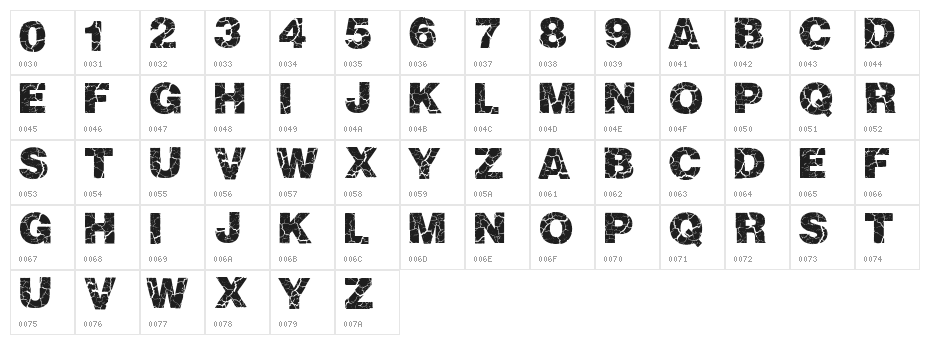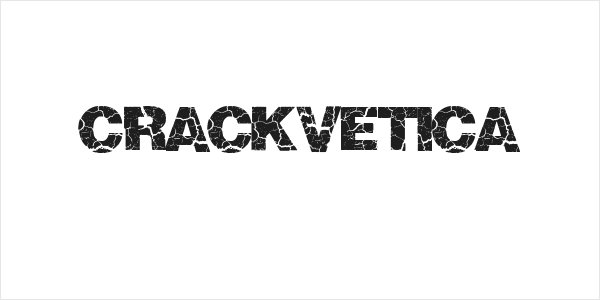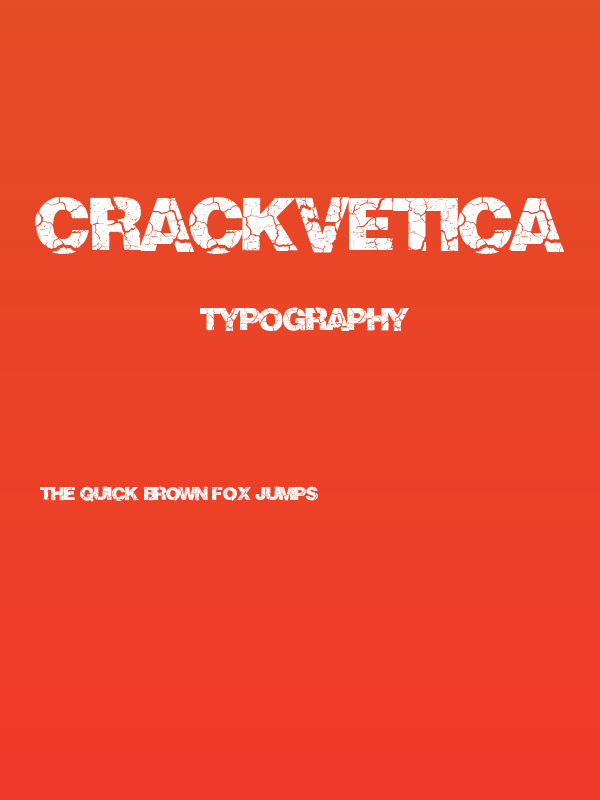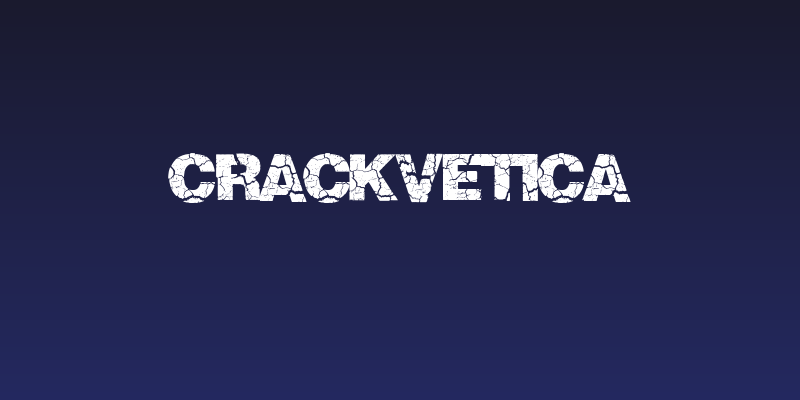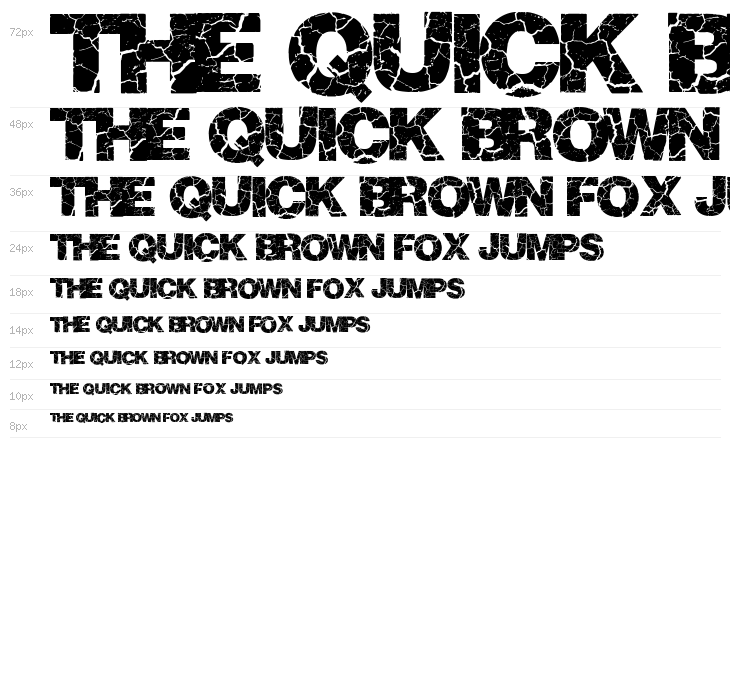
Crackvetica Font
Crackvetica Description
This font features a bold, distressed style with a cracked texture that gives it a rugged and edgy appearance. The uppercase and lowercase letters, as well as numbers, are uniformly styled with a consistent crack pattern, creating a cohesive look. The bold weight and high contrast between the thick strokes and the cracked spaces make it stand out, ideal for designs that require a strong visual impact. The font's unique texture adds a sense of depth and character, making it suitable for projects that aim to convey a sense of toughness or grunge aesthetic.
Proposed ProjectsIdeal for posters, album covers, urban-themed designs, and branding that requires a strong, gritty aesthetic.